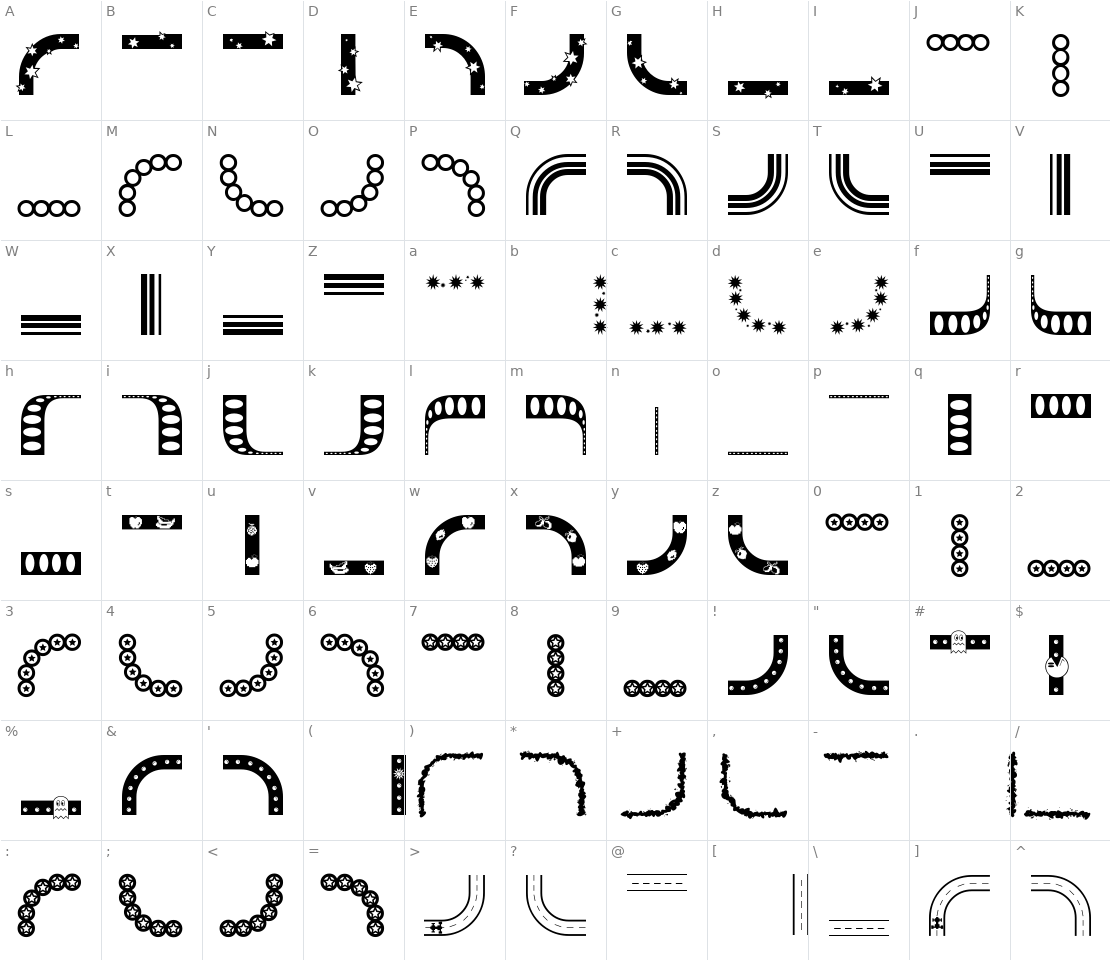
BorderMon
BorderMon is a dingbats font from Fontalicious made up of decorative border elements, frames, lines, and repeating patterns. Rather than letters, each keystroke produces a modular piece you can combine to build ornamental borders and dividers around text or page layouts. Useful for certificates, menus, invitations, and any design that calls for structured decorative framing without reaching for clip art.